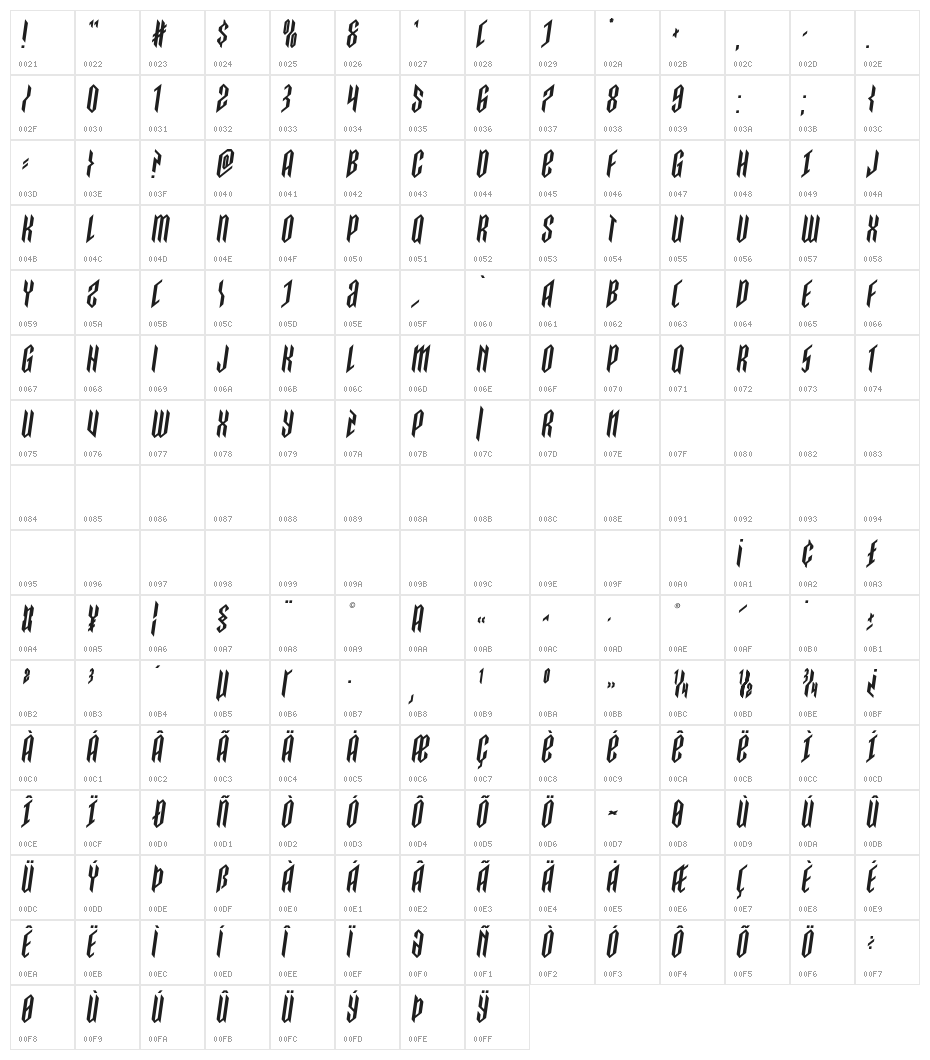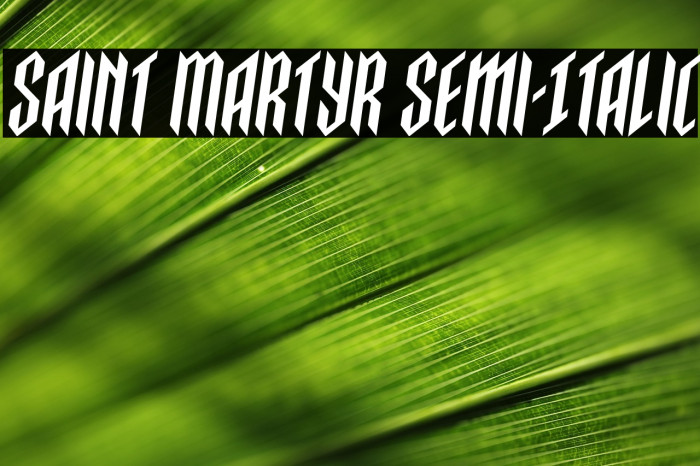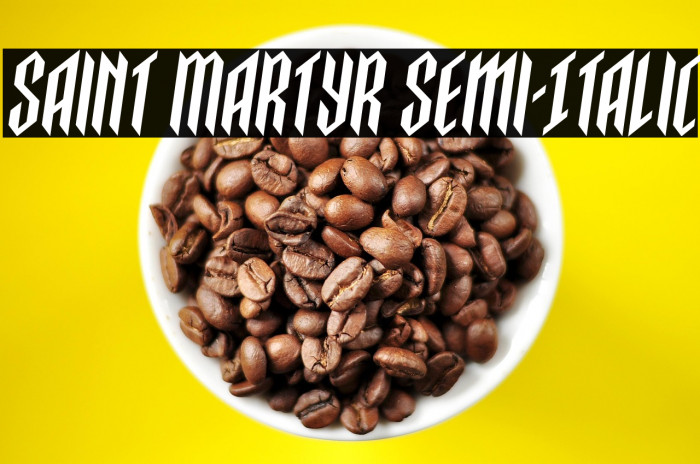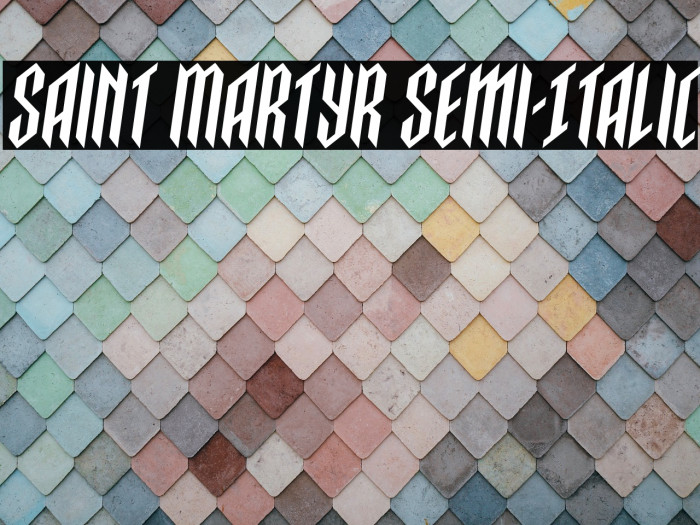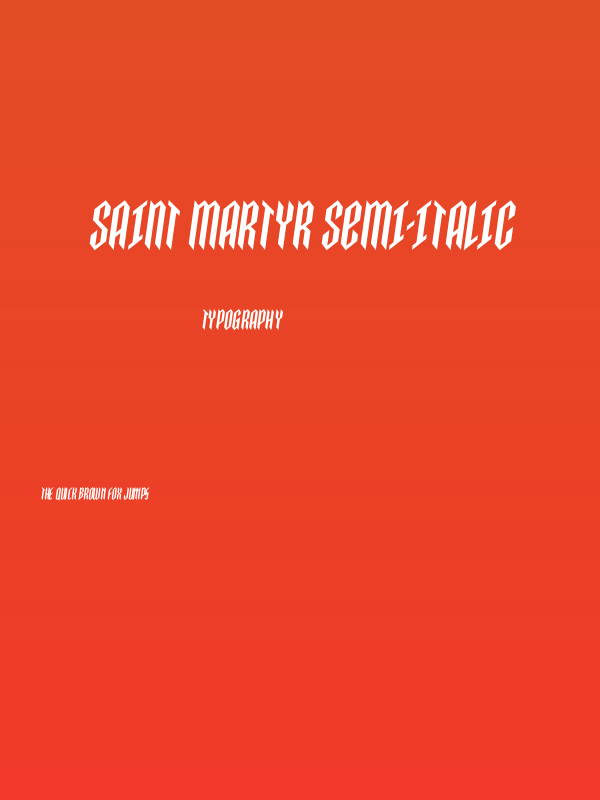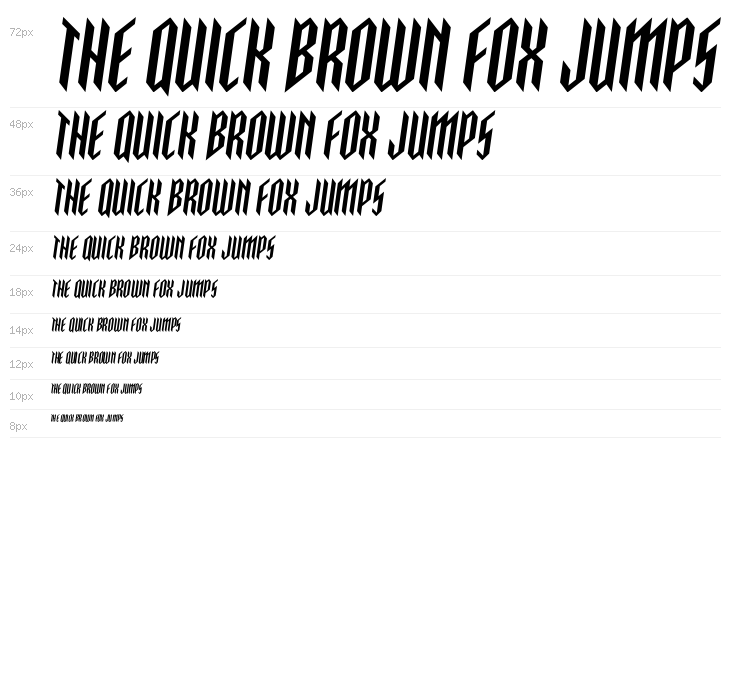
Saint Martyr Semi-Italic Font
Saint Martyr Semi-Italic Description
This font features a bold and dynamic design with a strong slant, giving it a sense of movement and energy. The characters are sharply angled with thick strokes, creating a striking and impactful appearance. The uppercase and lowercase letters maintain a consistent style, with the uppercase being particularly prominent. Numbers and special characters follow the same bold and angular design, ensuring uniformity across all elements. The overall look is modern and edgy, making it suitable for projects that require a bold statement.